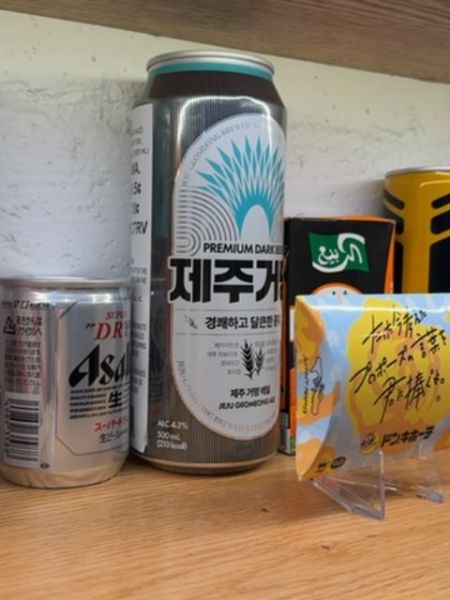
Asahi Super Dry
A popular Japanese beer known for its crisp, dry taste.
1987
The typography on the Asahi can is characterized by a bold, sans-serif font that conveys a sense of modernity and simplicity. The use of contrasting colors, black and red on a silver background, enhances the legibility and creates a striking visual impact.
The packaging features a sleek silver color with bold red and black text, giving it a modern and refreshing look. The aluminum can is compact and designed for easy handling.
- Asahi Super Dry was introduced in 1987.
- It is one of the best-selling beers in Japan.
- The beer uses a special yeast that contributes to its dry taste.